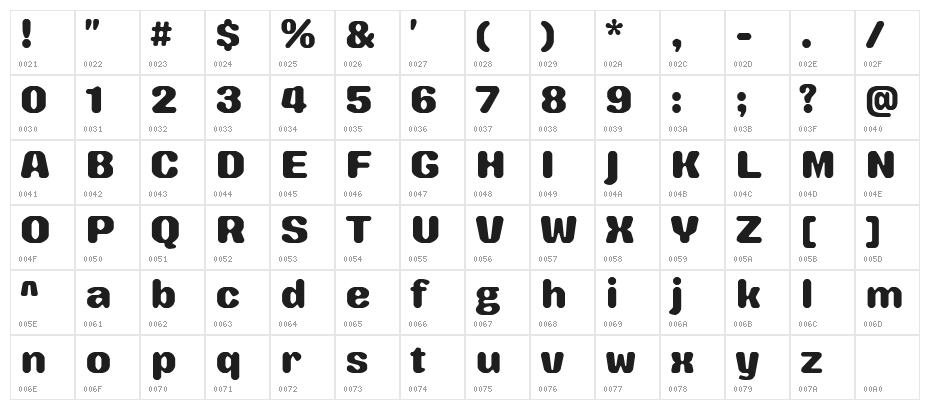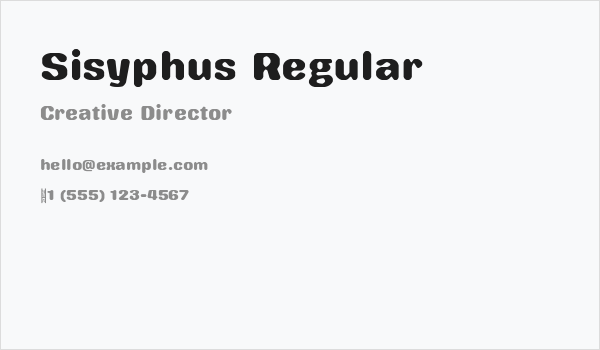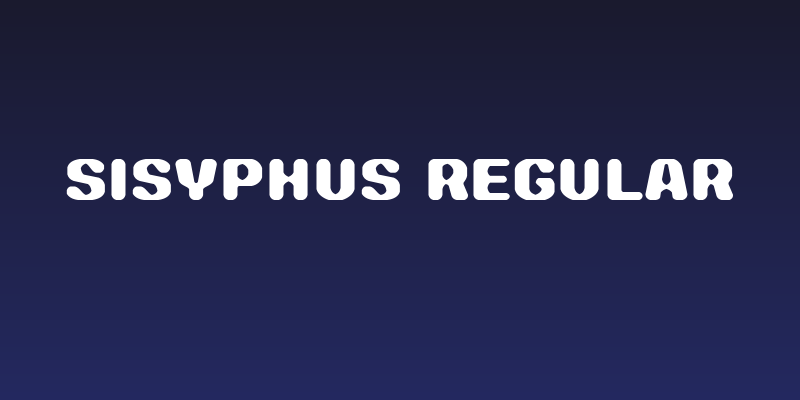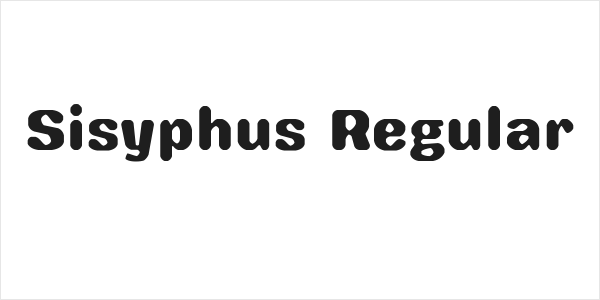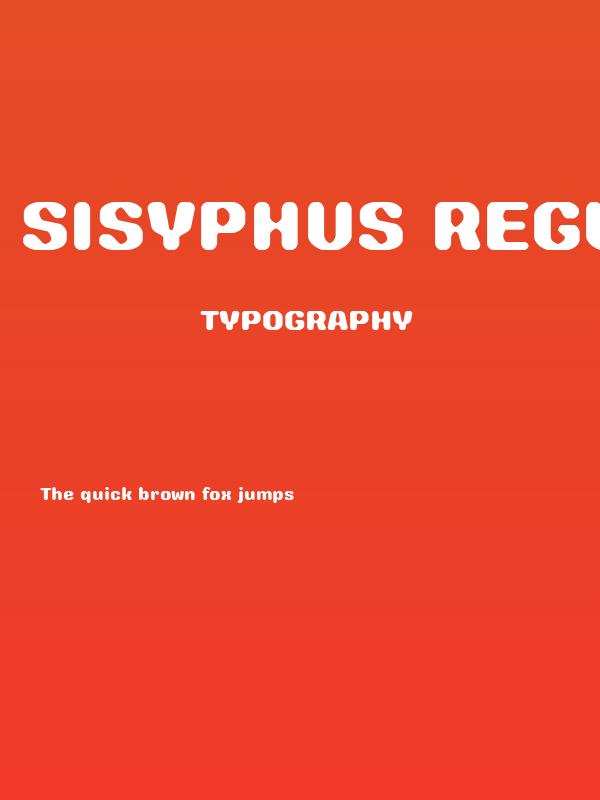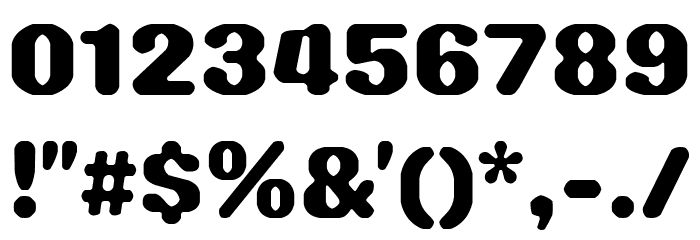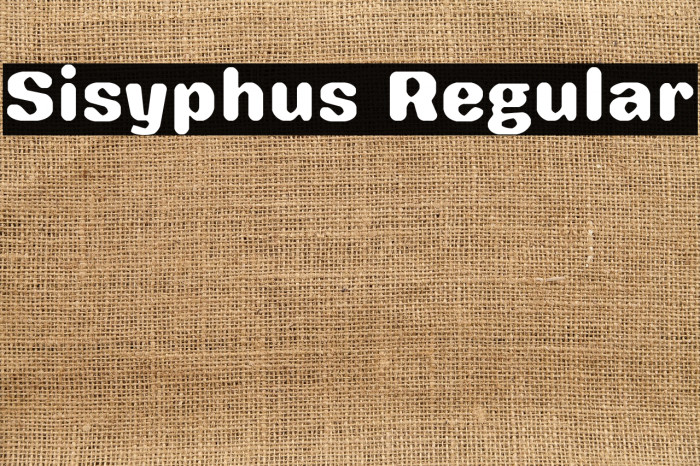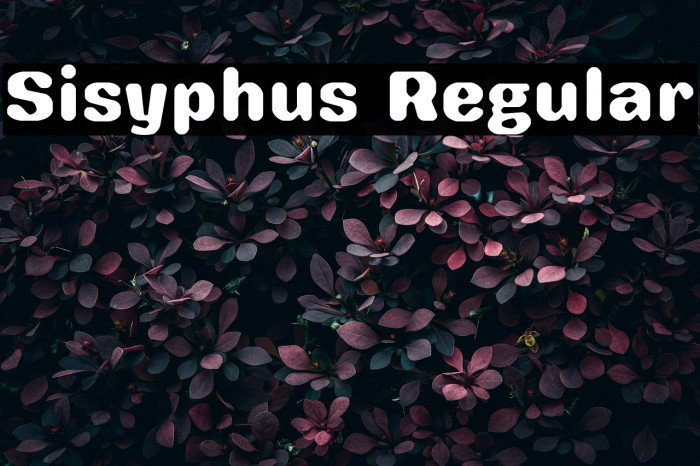
Sisyphus Regular Font
Sisyphus Regular Description
This font features bold, rounded characters with a playful and robust appearance. The letters are evenly spaced, providing a clean and organized look. The rounded edges give it a friendly and approachable feel, making it suitable for a variety of design projects. The numbers and special characters maintain the same boldness and rounded style, ensuring consistency across all elements. This font is versatile, offering a modern twist on traditional bold fonts, making it ideal for eye-catching headlines and creative designs.
| Proposed Projects | Great for branding, posters, children's books, and playful graphic designs. |